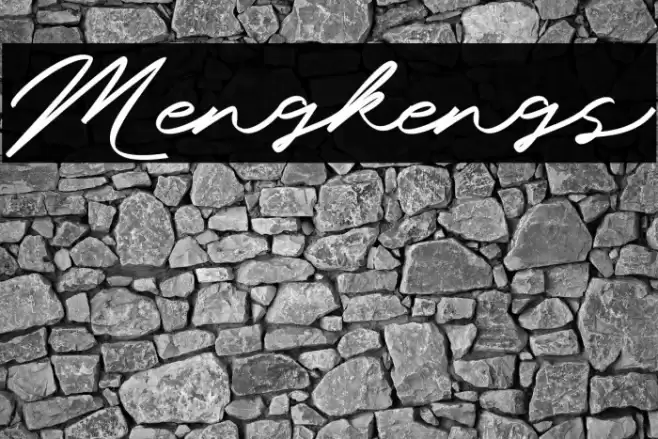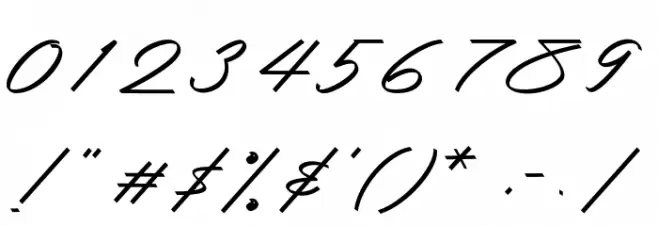
Mengkengs Font
Mengkengs Description
This font features a flowing, cursive style that mimics elegant handwriting. The uppercase letters are slightly larger and more pronounced, while the lowercase letters maintain a consistent slant and fluidity. The numerals are designed to match the script style, offering a cohesive look. Special characters are seamlessly integrated, maintaining the overall aesthetic. The strokes are smooth and connected, giving a sense of continuity and grace. This font is ideal for projects that require a personal touch or a sense of sophistication.
A cursive script font with elegant, flowing strokes from Uncategorized fonts.
- Proposed Projects: Perfect for wedding invitations, greeting cards, personal branding, and elegant signage.
- Overall Style: Elegant, Handwritten
- Use Case: Logos, Invitations, Personal Correspondence